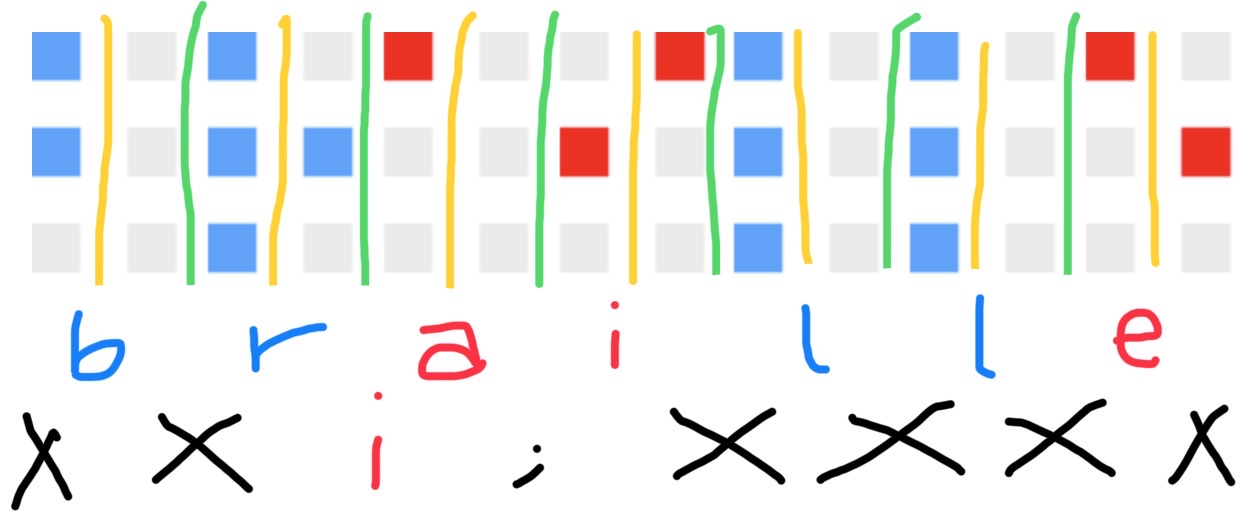
The spacing between the characters... It's less than the spacing between dots 1, 2, 3 with, respectively, 4, 5 and 6!
For example, the yellow lines are looser than the green lines. Top decoding: correct text (braille). Bottom decoding: incorrect text (black is invalid text and/or punctuation).
The spacing between the characters... It's less than the spacing between dots 1, 2, 3 with, respectively, 4, 5 and 6!
For example, the yellow lines are looser than the green lines. Top decoding: correct text (braille). Bottom decoding: incorrect text (black is invalid text and/or punctuation).